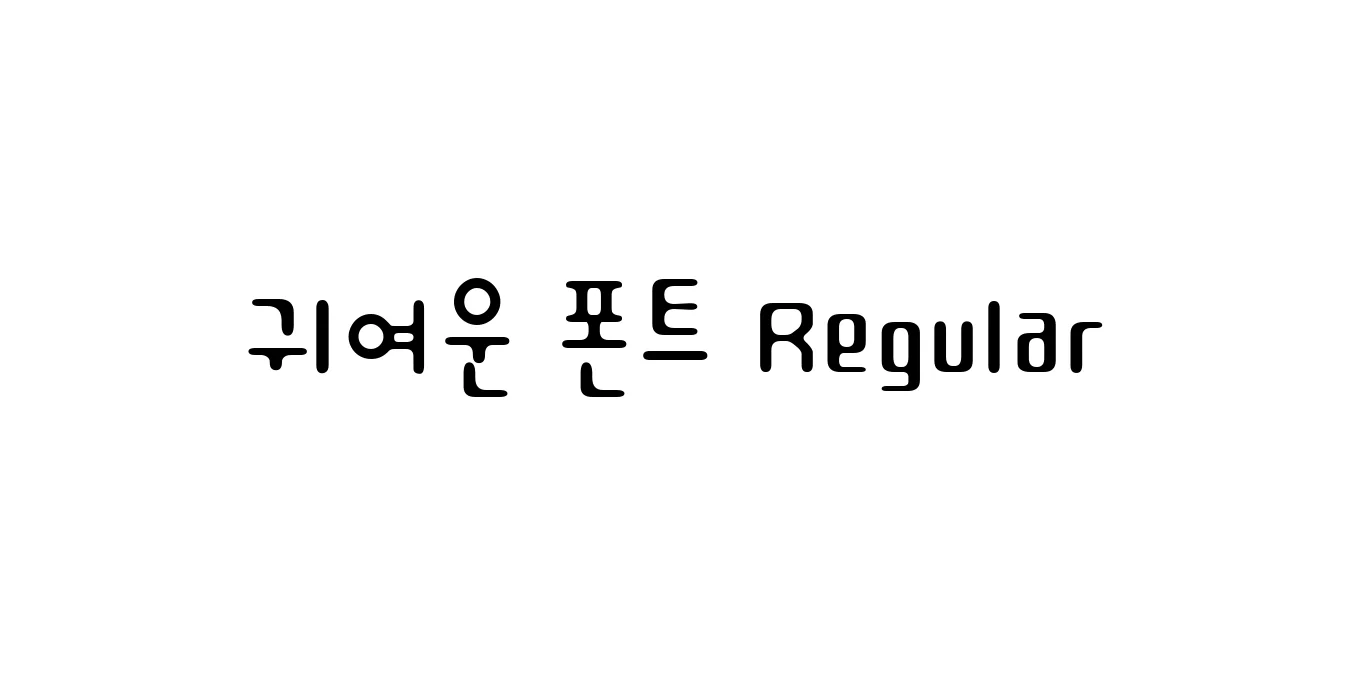
귀여운 폰트 Regular
Designed by UhBee
| Font Name | 귀여운 폰트 |
| Category | Handwriting / Script |
| Designer | UhBee |
귀여운 폰트 Regular (Cute Font Regular) is a charming Korean typeface specifically crafted to emulate a clean and playful handwriting style. It captures the essence of manual penmanship, focusing on rounded terminals and a relaxed stroke weight that creates a friendly and approachable aesthetic for any project.
This font has gained significant popularity within the digital planning and social media communities due to its high legibility despite its whimsical nature. It serves as an excellent alternative to standard system fonts when a designer wants to add a touch of personality and warmth to digital interfaces, mobile applications, or printed stationery.
귀여운 폰트 Regular Best Uses
Ideal for GoodNotes, Notion, and digital diary entries.
Perfect for Instagram stories, TikTok captions, and Pinterest pins.
Friendly appearance makes it suitable for elementary school teaching materials.
Adds a sincere, personal touch to digital and physical invitations.